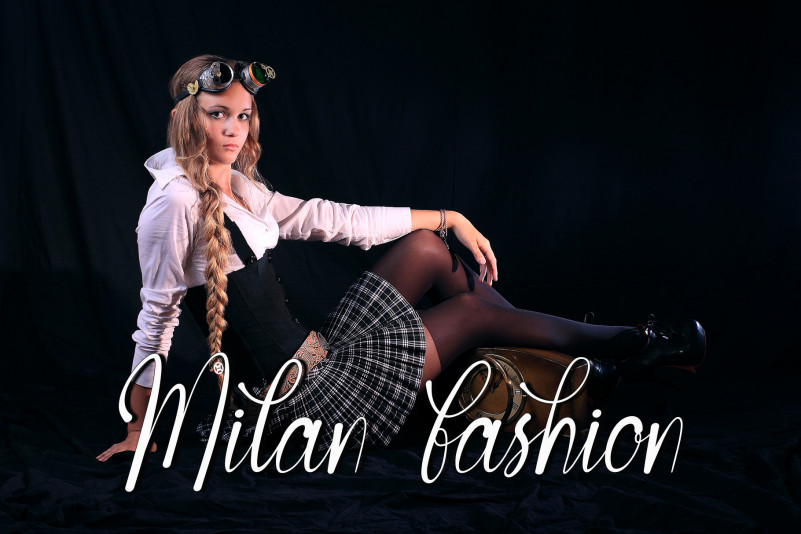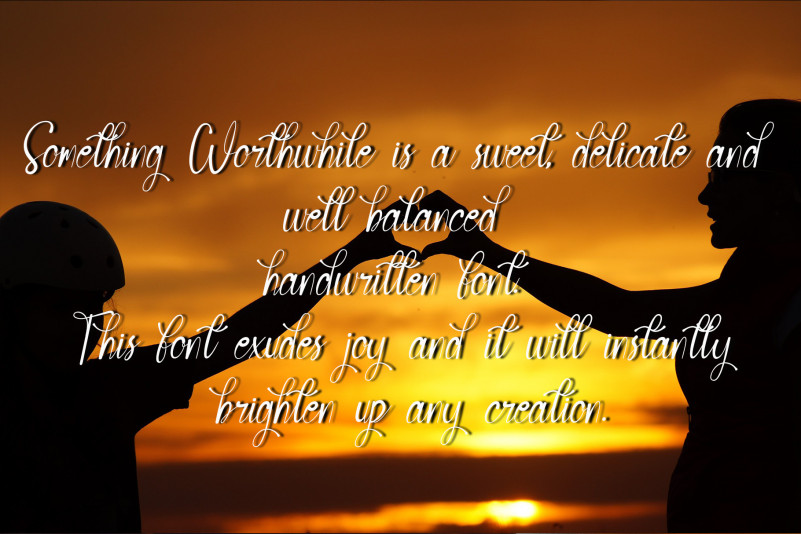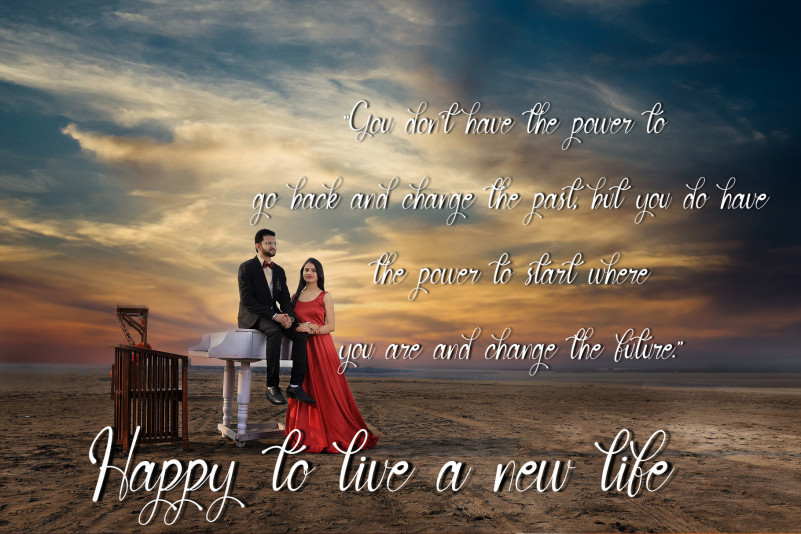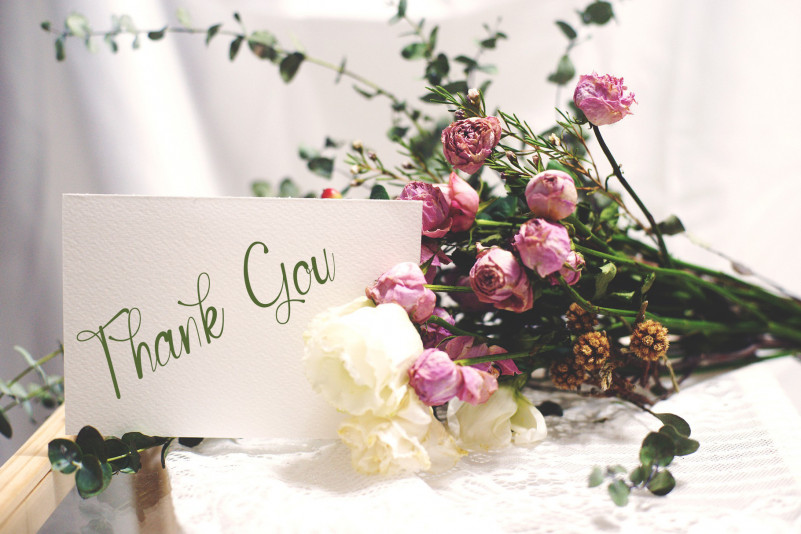
Something Worthwhile Font
Something Worthwhile Script Font
This is a whimsical script font with a relaxed theme, featuring a lovely style. No matter the topic, this font will be an incredible asset to your fonts library, as it has the potential to elevate any creation!